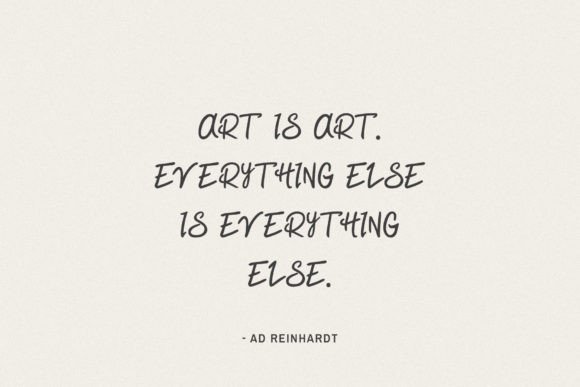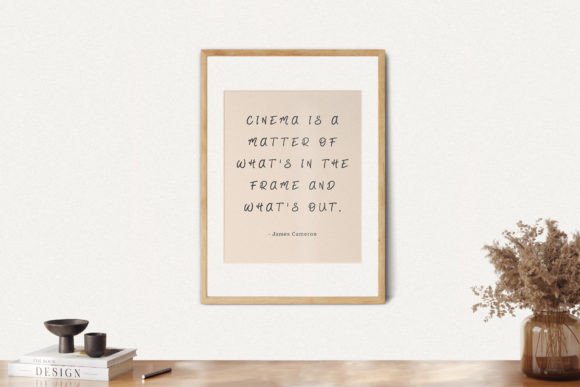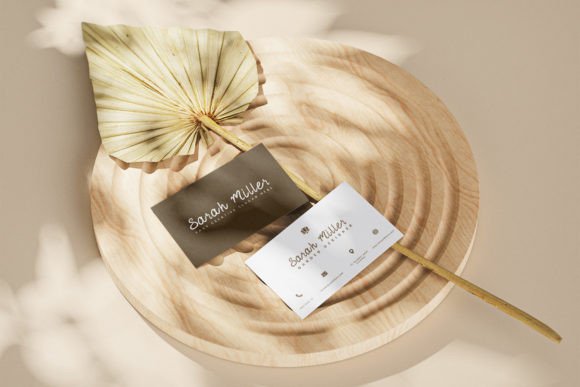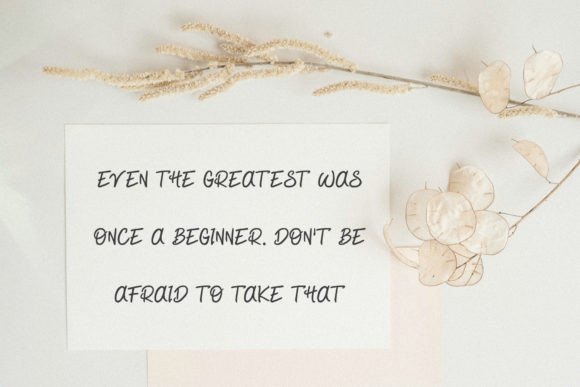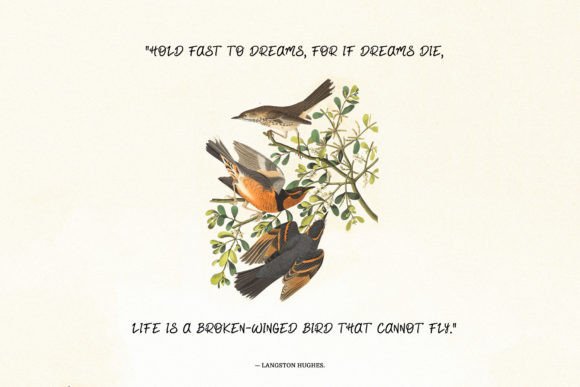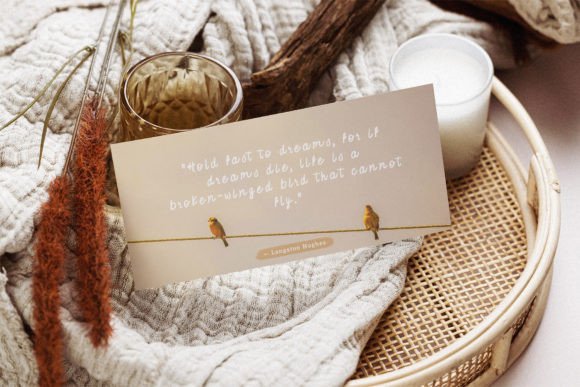
Aariz Handwritten Font: Elevate Your Projects with Delicate Style
In the world of typography, a well-chosen font can make all the difference in the success of a design project. For designers and crafters looking to add a touch of elegance and whimsy to their work, the Aariz Handwritten Font is an excellent choice. This delicate, cute, and stylish handwritten font is perfect for a wide range of projects, from presentations and headlines to lettering, posters, and invitations.
What is Aariz Handwritten Font?
Aariz is a beautifully crafted handwritten font that exudes a sense of sophistication and playfulness. Its delicate strokes and charming letterforms make it an ideal choice for designers who want to add a personal touch to their work. Whether you’re creating a presentation, a poster, or an invitation, Aariz font is sure to elevate your project and make it stand out.
Key Features of Aariz Handwritten Font
- Delicate and Cute: Aariz font features delicate strokes and charming letterforms that give it a cute and endearing quality.
- Stylish and Elegant: Despite its playful nature, Aariz font is also stylish and elegant, making it perfect for projects that require a touch of sophistication.
- Handwritten: Aariz font has a beautiful handwritten quality that gives it a personal and unique feel.
- Versatile: Aariz font is suitable for a wide range of projects, from presentations and headlines to lettering, posters, and invitations.
Use Cases for Aariz Handwritten Font
Aariz font is great for various projects that require a distinctive touch. Here are some use cases where Aariz font shines:
- Presentations: Add a touch of elegance to your presentations with Aariz font. It’s perfect for titles, headings, and key points.
- Headlines: Make your headlines stand out with Aariz font. Its stylish and delicate nature makes it perfect for grabbing attention.
- Lettering: Aariz font is ideal for lettering projects, such as quotes, phrases, and slogans.
- Posters: Create eye-catching posters with Aariz font. Its bold and delicate nature makes it perfect for titles, headings, and key messages.
- Invitations: Add a touch of whimsy to your invitations with Aariz font. It’s perfect for weddings, birthday parties, and other special occasions.
Why Choose Aariz Handwritten Font?
There are many reasons why Aariz font stands out from the crowd. Here are a few:
- Unique: Aariz font has a unique and distinctive quality that sets it apart from other fonts.
- Easy to Read: Despite its delicate nature, Aariz font is easy to read and understand.
- Highly Versatile: Aariz font can be used for a wide range of projects, from digital to print.
- Great for Branding: Aariz font is perfect for branding projects, such as logos, business cards, and letterheads.
Tips for Using Aariz Handwritten Font
Here are some tips for using Aariz font effectively:
- Use it Sparingly: Aariz font is best used sparingly, such as for headings and titles.
- Pair it with Other Fonts: Pair Aariz font with other fonts to create a unique and interesting contrast.
- Experiment with Colors: Experiment with different colors to find the perfect match for your Aariz font.
In conclusion, Aariz Handwritten Font is a delicate, cute, and stylish font that is perfect for designers and crafters looking to add a touch of elegance and whimsy to their work. Its versatility, unique quality, and ease of use make it an excellent choice for a wide range of projects. Whether you’re creating a presentation, a poster, or an invitation, Aariz font is sure to elevate your project and make it stand out.